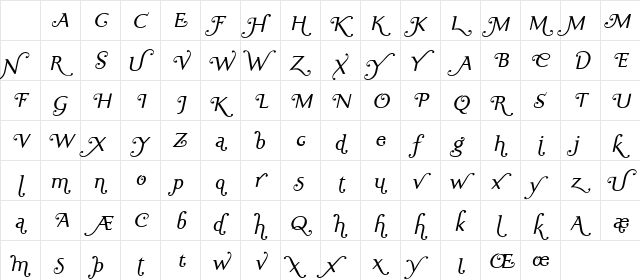
Complete Ela Swashes SemiLight Italic glyph index. Displaying only characters natively supported by Ela Swashes SemiLight Italic font.
Ela Swashes SemiLight flows with the natural rhythm of handwritten lettering, making it ideal for designs that call for warmth and personal expression. Its slender proportions lend an understated elegance to any composition.
Font Pairing: Combine Ela Swashes SemiLight with a simple geometric sans for maximum contrast - the tension between flowing curves and clean structure is a classic typographic pairing.
Pro Tip: Use Ela Swashes SemiLight for short runs of text - names, titles, or taglines. Extended body copy in script faces tires the eye quickly.